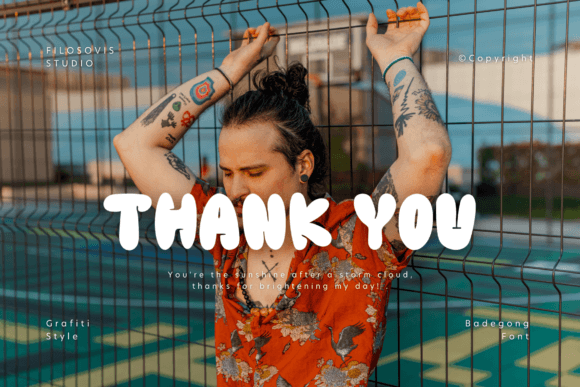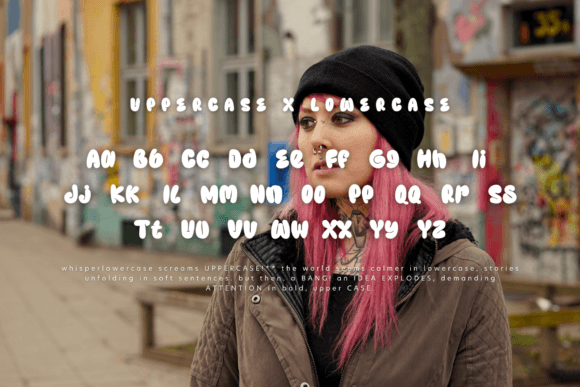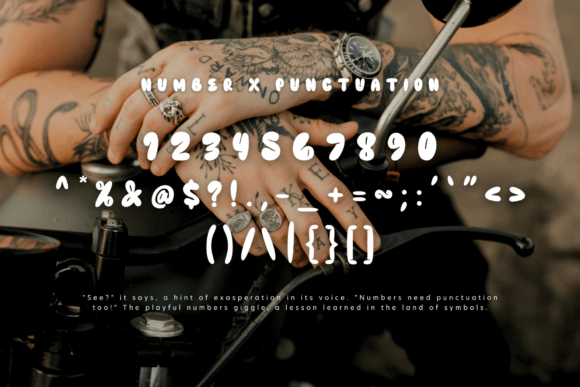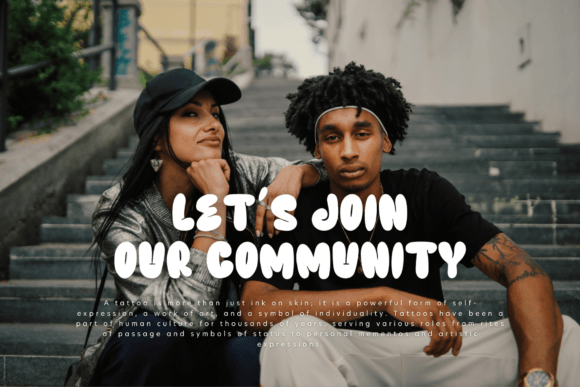
Introducing Badegong Font: The Fun and Quirky Display Font You Need
Are you tired of using the same old fonts in your creative projects? Do you want to add a touch of whimsy and personality to your designs? Look no further than Badegong Font, a fun and quirky display font that’s sure to take your work to the next level. In this article, we’ll explore the features and benefits of Badegong Font, and show you how to make the most of this exciting new font.
What is Badegong Font?
Badegong Font is a display font designed to add a playful and eye-catching touch to your creative projects. With its unique and quirky design, Badegong Font is perfect for designers, crafters, and anyone looking to add some personality to their work. Whether you’re creating a logo, poster, or social media graphic, Badegong Font is sure to make your design stand out.
Key Features of Badegong Font
- Fun and Quirky Design: Badegong Font features a unique and playful design that’s sure to grab attention.
- Display Font: Badegong Font is designed specifically for display use, making it perfect for headlines, titles, and other prominent text elements.
- Easy to Read: Despite its quirky design, Badegong Font is easy to read, even at smaller sizes.
- Versatile: Badegong Font can be used in a wide range of creative projects, from logos and posters to social media graphics and more.
Benefits of Using Badegong Font
So why should you choose Badegong Font for your next creative project? Here are just a few benefits of using this exciting new font:
- Add Personality to Your Designs: Badegong Font is the perfect way to add a touch of whimsy and personality to your designs.
- Stand Out from the Crowd: With its unique and quirky design, Badegong Font is sure to make your design stand out from the crowd.
- Time-Saving: With Badegong Font, you can create professional-looking designs in no time, saving you time and effort.
Examples of Badegong Font in Action
Badegong Font is a versatile font that can be used in a wide range of creative projects. Here are a few examples of Badegong Font in action:
- Logos: Use Badegong Font to create a fun and quirky logo for your business or brand.
- Posters: Add a touch of personality to your posters with Badegong Font.
- Social Media Graphics: Use Badegong Font to create eye-catching social media graphics that stand out from the crowd.
Badegong is a fun and quirky display font. Add it to your creative projects and enjoy the results!